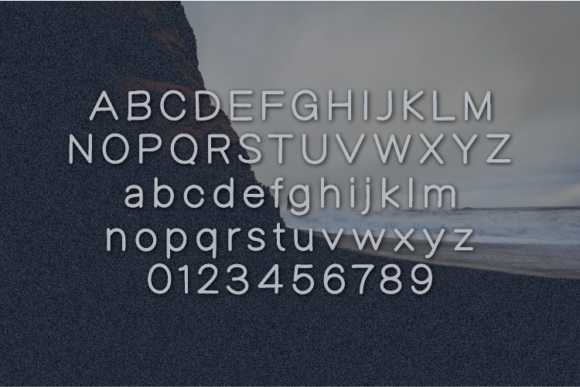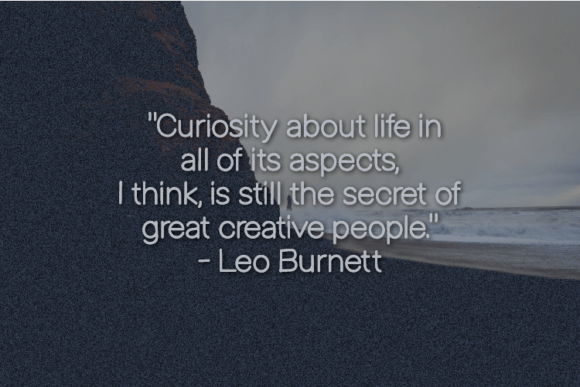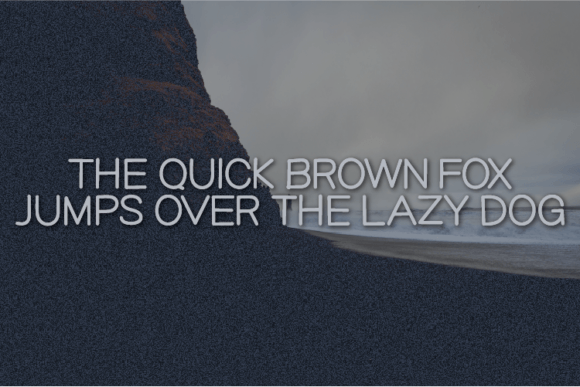
Introduction to Mouzard Font
Imagine you’re working on a creative project and you’re stuck on finding the perfect font to elevate your design. You scroll through countless options, but nothing seems to match the vision in your mind. Then, you stumble upon Mouzard Font, a casual and neat sans serif font that instantly sparks inspiration.
With its natural and elegant style, Mouzard Font is perfect for designers who want to add a touch of sophistication to their work without much effort. Whether you’re working on a logo, brochure, or website, this font is sure to impress. Plus, its transparent background makes it easy to customize and integrate into your design.
Mouzard Font
- Unique characteristics include a modern, elegant design with precise details
Honest Review: Mouzard Font
I recently had the opportunity to work with the Mouzard Font, and I must say it’s been a game-changer for my design projects. As a designer, I’m always on the lookout for high-quality design resources that can help me elevate my work.
One of the things I love about Mouzard Font is its versatility. It’s perfect for creating unique and creative projects, from logos and branding to print materials and digital designs. The font’s clean lines and elegant feel make it a great choice for anyone looking to add a touch of sophistication to their work.
- ✨ High-quality design that looks great on a variety of backgrounds, including transparent backgrounds.
- ✨ Perfect for creative projects, including logos, branding, and print materials.
- ⚠️ Limited font styles and variations, which may not be suitable for more complex design projects.
- ⚠️ May not be as versatile for use in digital platforms, such as social media or websites.
Overall, I’m thoroughly impressed with the Mouzard Font. It’s a fantastic addition to any designer’s toolkit, and I would highly recommend it for any creative project. Just keep in mind its limitations, and you’ll be well on your way to creating stunning designs.
Mouzard Font
The Mouzard Font is perfect for creating invitations, social media graphics, and branding materials. Its high-quality design and transparent background feature make it a valuable resource for any creative project.